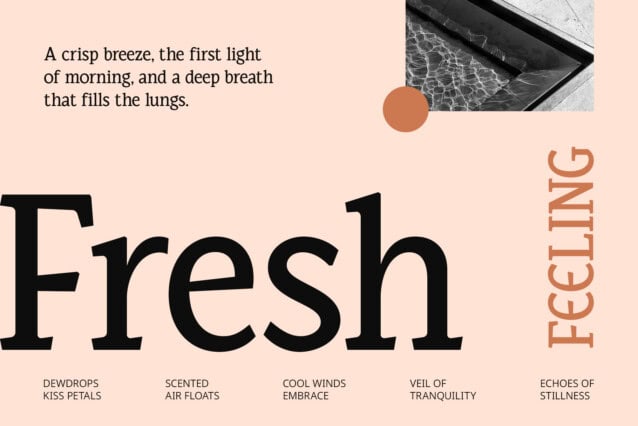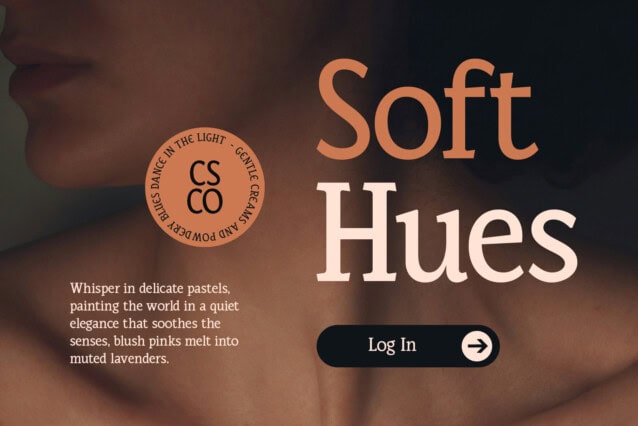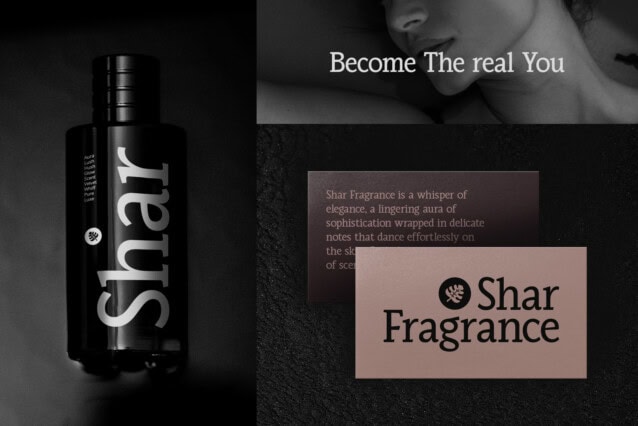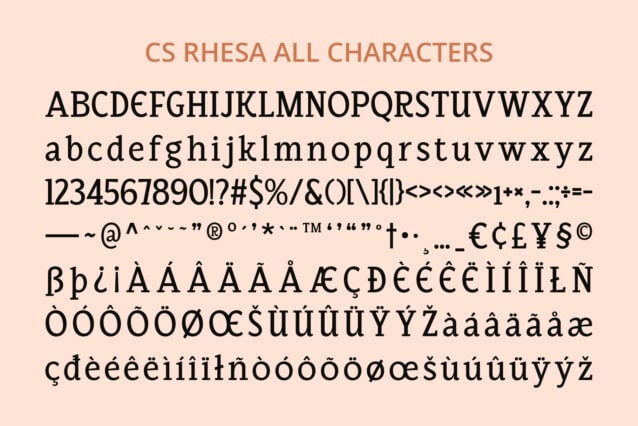
CS Rhesa Font
CS Rhesa Font is a modern classic serif font that blends timeless tradition with contemporary sophistication. Designed with precision, it features a balanced contrast between thick and thin strokes, enhancing both elegance and readability. This refined balance makes it a perfect choice for projects that require a distinguished and polished look.